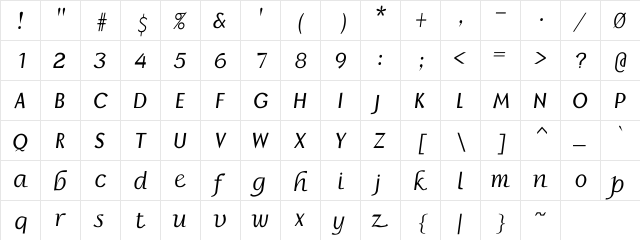
BorzoiItalic Regular
Design Context for BorzoiItalic Typeface
BorzoiItalic is a composed and adaptable typeface that performs quietly and consistently across a wide range of design contexts. The slanted form adds forward momentum and visual energy.
Pro Tip: Try BorzoiItalic for annotation and caption copy alongside an upright companion — the contrast in angle creates a dynamic but ordered typographic system.